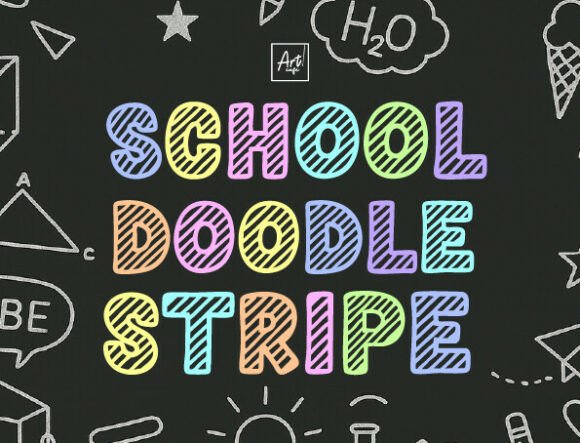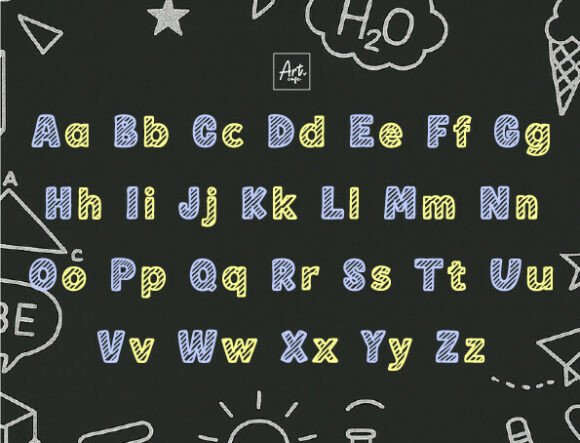
School Doodle Stripe Font
Add a playful, school-inspired vibe to your creative projects with School Doodle Stripe! This bold and colorful display font is filled with diagonal stripes that look just like doodles on a chalkboard — perfect for teachers, students, and crafters alike!